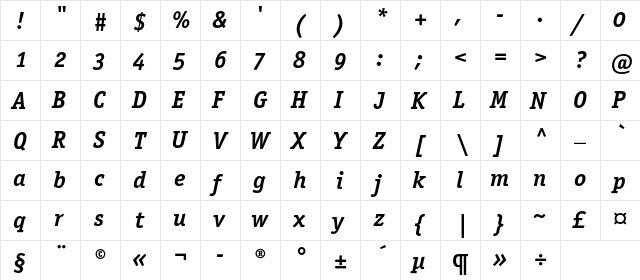
OfficinaSerifBoldOSC Italic Font Preview
Design Context for OfficinaSerifBoldOSC Typeface
OfficinaSerifBoldOSC carries the refined structure of traditional serif typography, with bracketed terminals and considered proportions that communicate credibility and craft. Its italic angle brings a sense of urgency and motion to the letterforms. The heavy weight commands attention and anchors typographic hierarchies.
Pro Tip: Use OfficinaSerifBoldOSC for editorial body copy and considered headline work. Pair with a neutral sans for UI elements or captions to create a classic hierarchy.